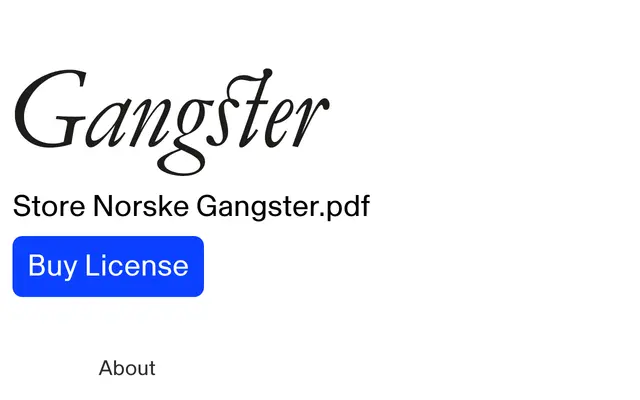
Store Norske Gangster
A Renaissance-informed serif by Arve Båtevik, drawing on Garamond, Granjon and Grandjean to produce clean, purposeful letterforms suited to book publishing and branding.
Designed by Arve Båtevik for Store Norske Skriftkompani, Gangster refines the intricate curves of Renaissance letterforms into digital shapes that retain historical character without nostalgia. The family includes a rich set of OpenType features covering small caps, multiple figure styles, swashes and ten stylistic sets in italic. Language support spans a broad Latin character set reaching Western and Central European, Nordic, Baltic, Celtic and Sami scripts.
Gangster draws directly from Renaissance sources including Garamond, Granjon and Grandjean, placing it firmly in the humanist serif tradition. Its distillation of complex Renaissance curves into cleaner digital forms places it close to contemporary neo-humanist interpretations of that lineage.